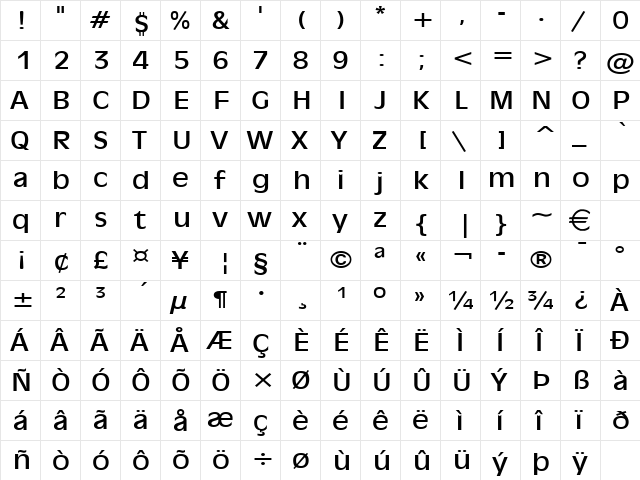
Antiqua101Wide Normal
Design Context for Antiqua101Wide Typeface
Antiqua101Wide is a composed and adaptable typeface that performs quietly and consistently across a wide range of design contexts.